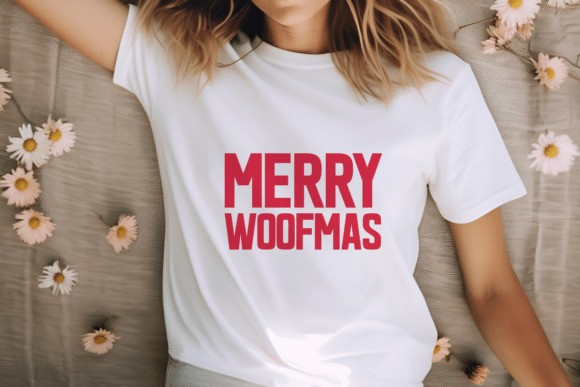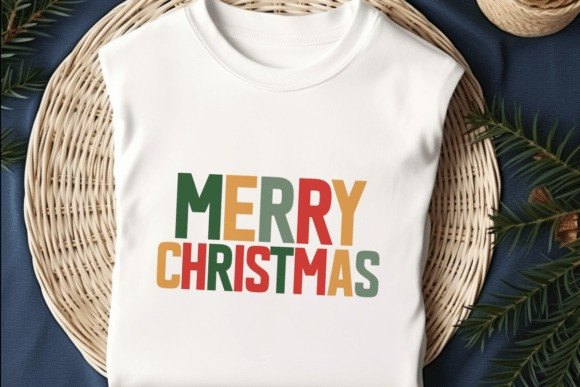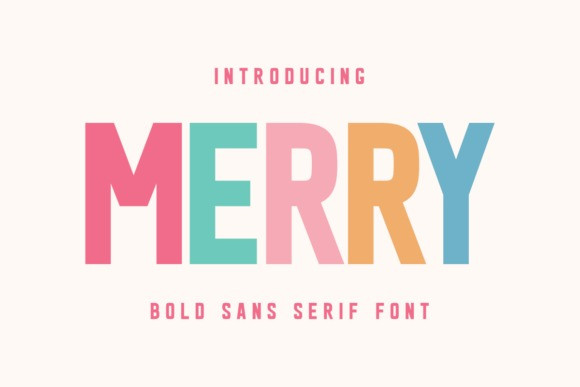
Merry Font
Merry Font is a vibrant sans serif display font bursting with joyful energy and modern charm, tailored for makers, crafters, designers, and creative entrepreneurs in the Print-on-Demand space. With its clean yet playful design, Merry adds a bright, approachable touch to everything from t-shirts and stickers to mugs, posters, product packaging, and social media graphics.
The bold, rounded letterforms ensure both personality and legibility, making it an excellent choice for headlines or supporting text. Whether you’re crafting designs for holidays, lifestyle brands, or playful merch collections, Merry brings the perfect mix of fun, friendliness, and functional style to your creative toolkit.